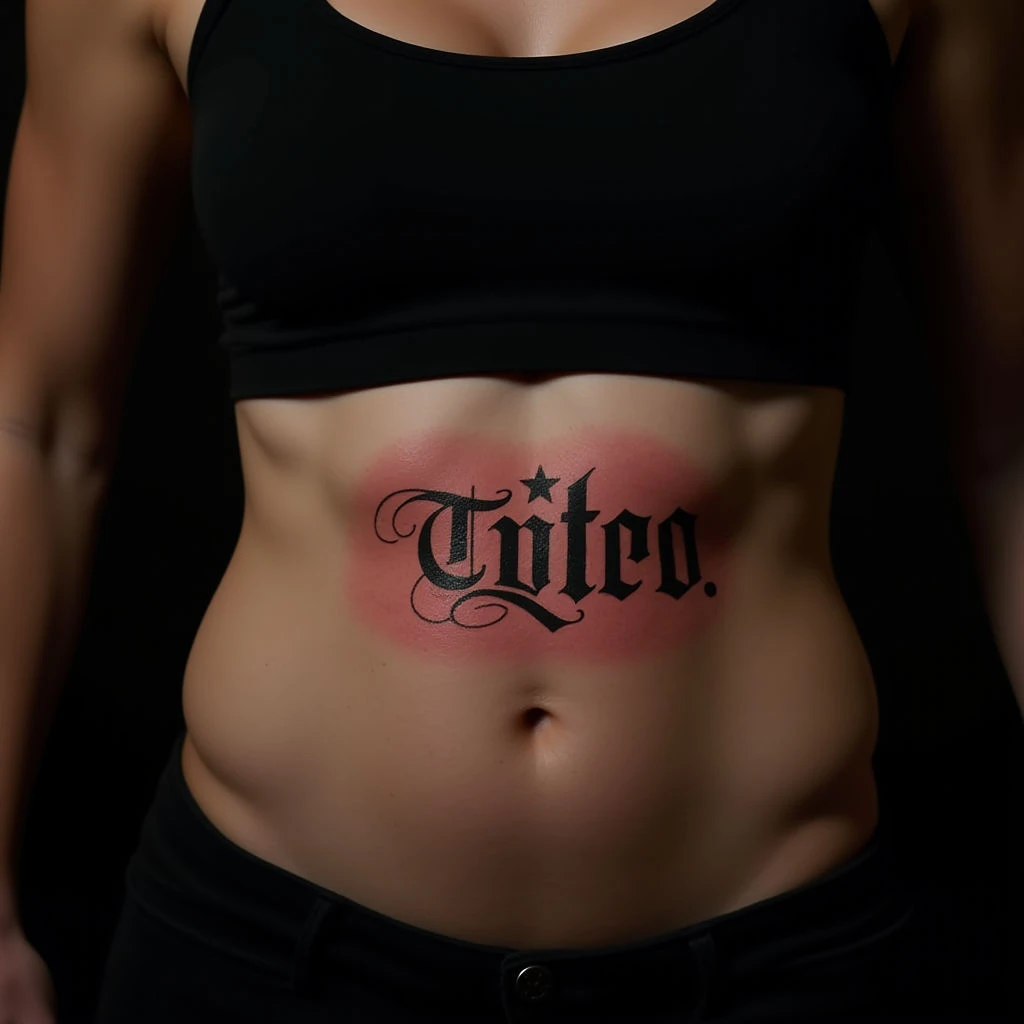
Discover unique lettering tattoos combining fonts, numbers, and the vibrant chaos of trash polka style. Perfect for small stomach pieces with a bold statement.
Trash Polka Letter & Number Tattoos: A Guide
Crisp black lettering, accented by a red outline and subtle shading, forms the central element of this lower abdomen tattoo. Two small star shapes provide visual balance on either side. The script style lends a personal touch to what is otherwise a clean, well-defined design.
This piece exemplifies trash polka tattooing – known for its chaotic yet controlled aesthetic. The placement on the stomach allows for a small (xs) size tattoo that still makes a bold statement. Combining fonts and numbers within this style creates a unique, personalized narrative.
Consider the curvature of your body when choosing a location; here, it’s expertly integrated. The brown-red color palette is characteristic of trash polka, adding depth and visual interest to the lettering design.